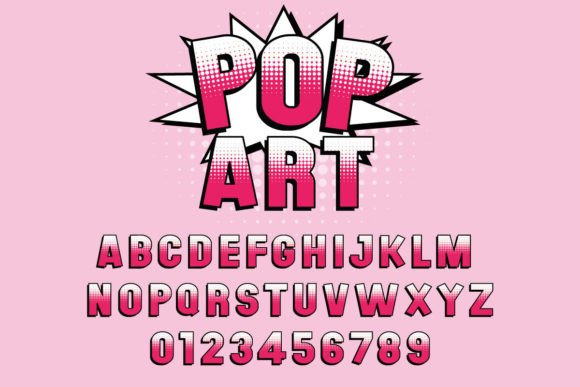
Pop Art, Bold Comic-Inspired Retro Display Typeface
Pop Art is a retro‑styled display font with bold, chunky letterforms that evoke the energetic, graphic‑heavy aesthetic of classic pop art design. Its stylized shapes and strong visual impact make it ideal for headlines, posters, packaging, branding, and other applications where striking typography matters. Whether you're designing for print, apparel, posters, or digital graphics, Pop Art offers a playful yet powerful look.